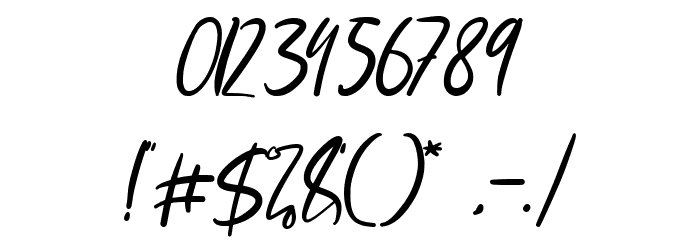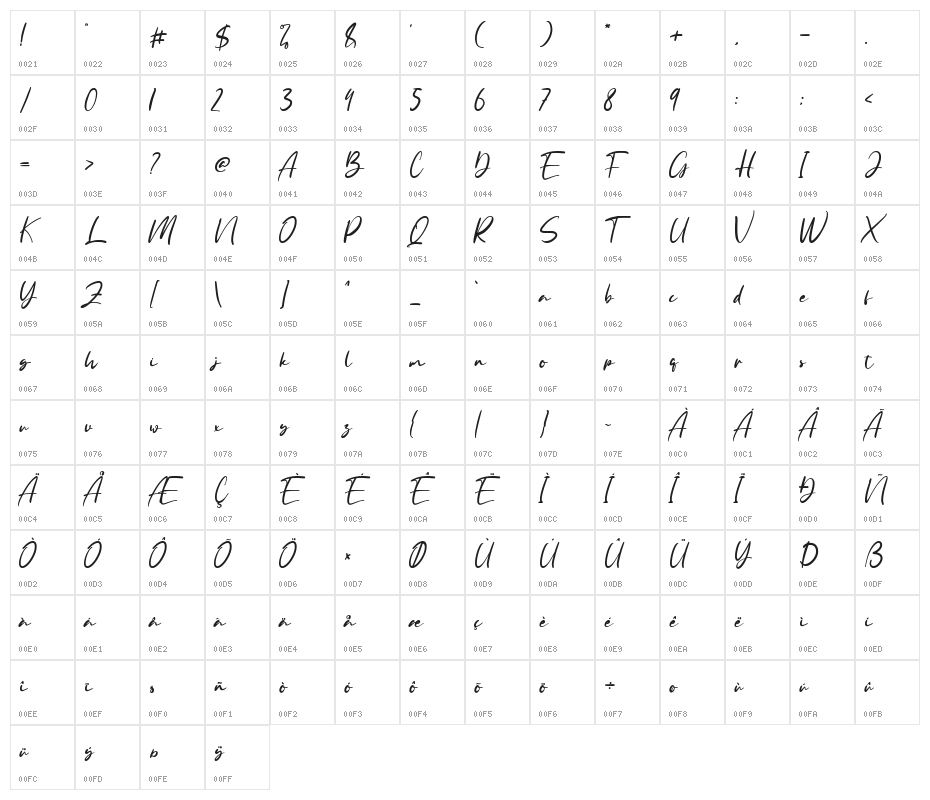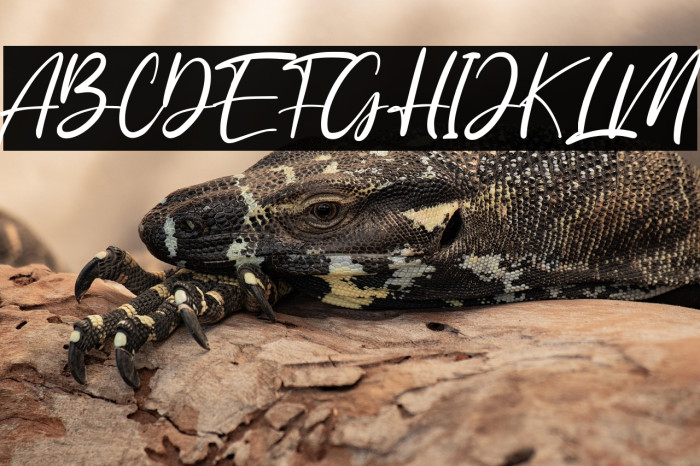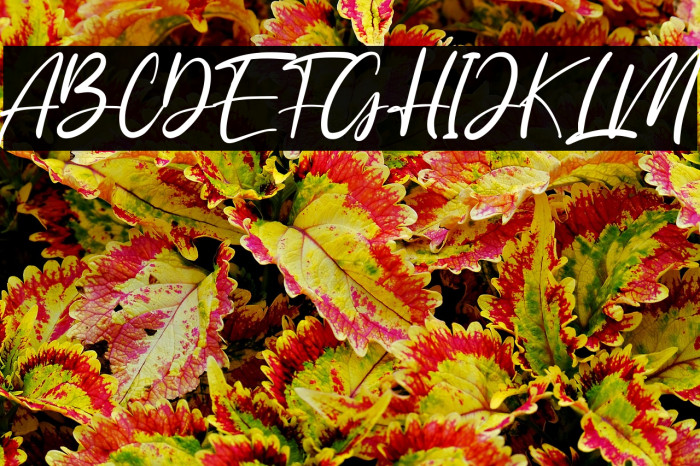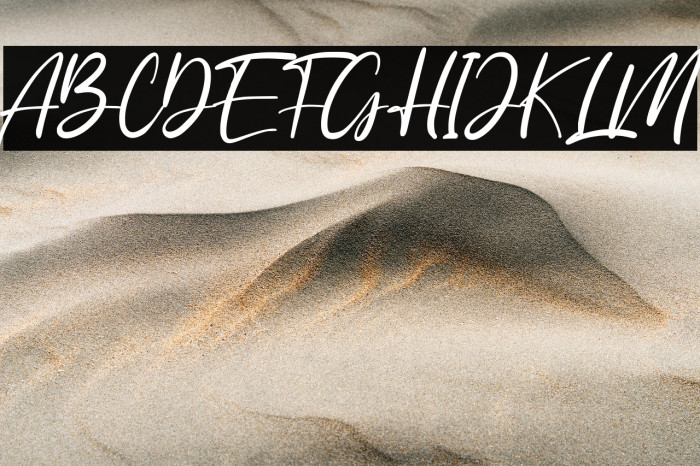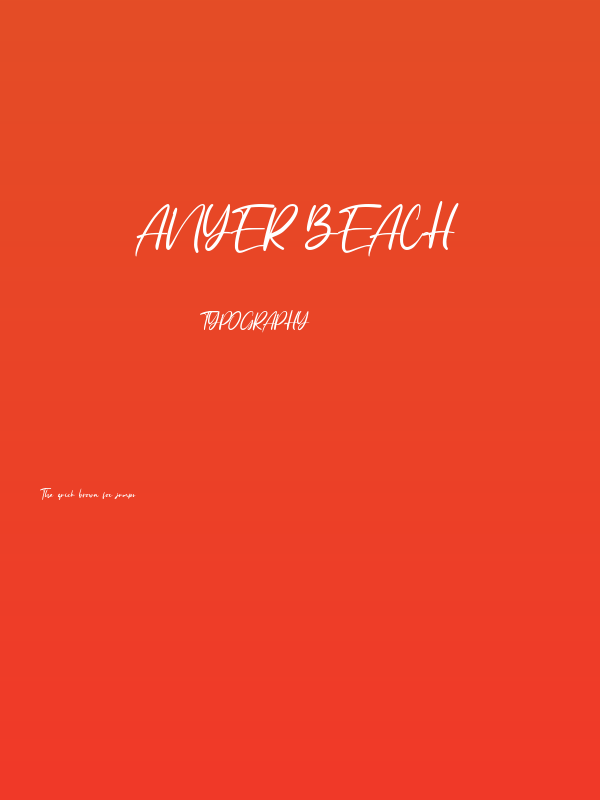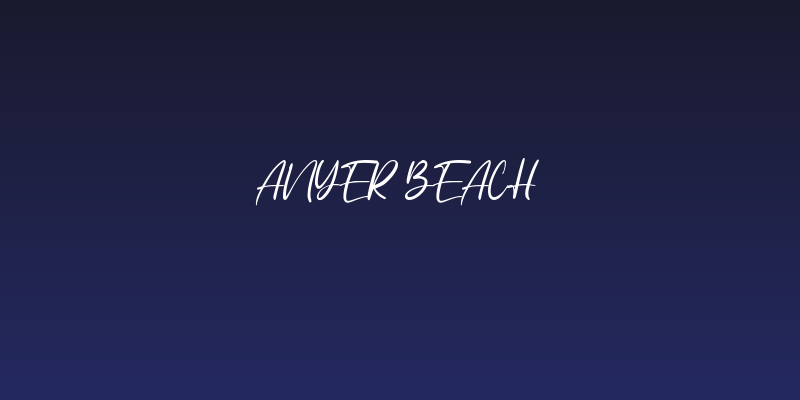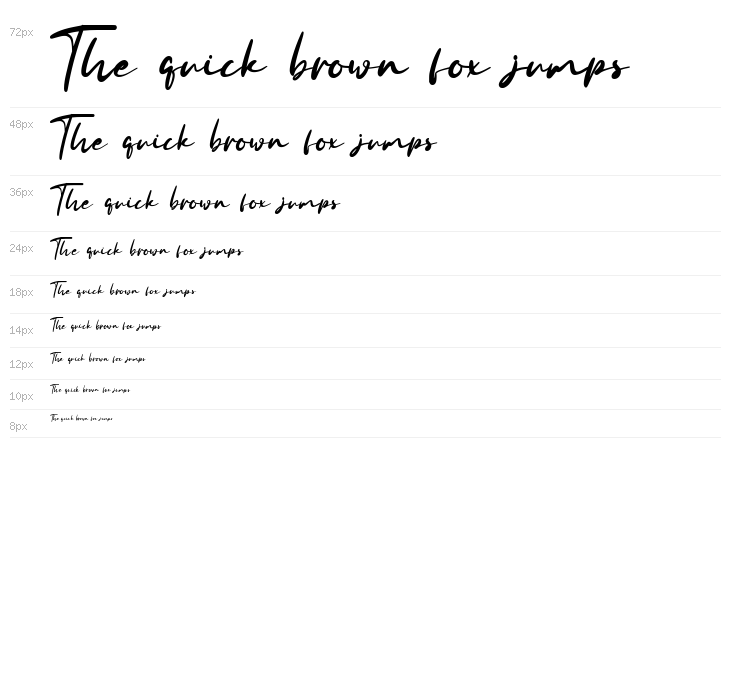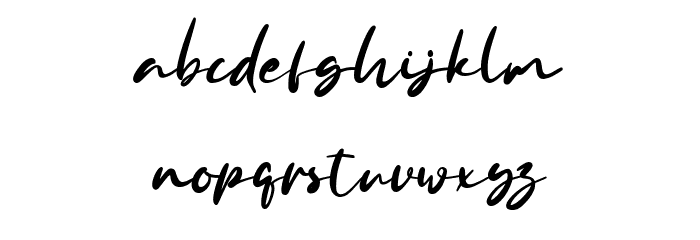
Anyer Beach Font
Anyer Beach Description
This font exudes a lively and energetic vibe with its fluid, handwritten style. The characters are crafted with a natural flow, resembling authentic cursive handwriting. Each letter is distinct yet harmoniously connected, making it ideal for conveying a personal touch. The uppercase letters are bold and dynamic, while the lowercase letters maintain a smooth, continuous line. Numbers and special characters are designed with the same playful and informal aesthetic, ensuring consistency across all text elements. This font is perfect for projects that require a personal, friendly, and approachable feel.